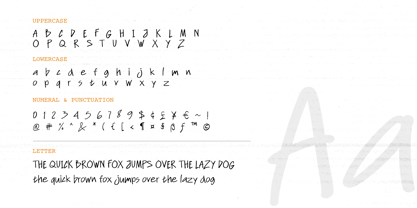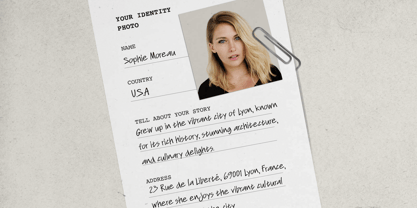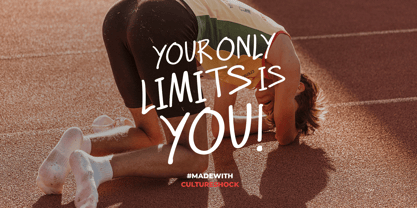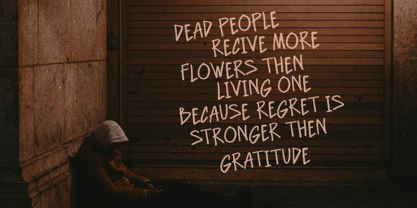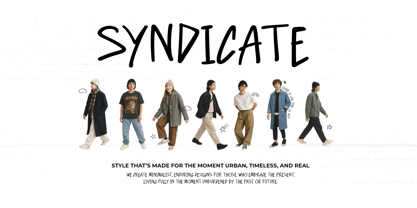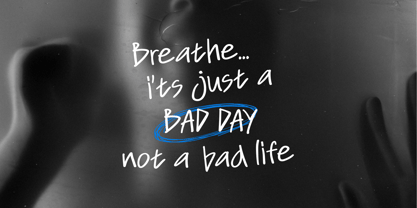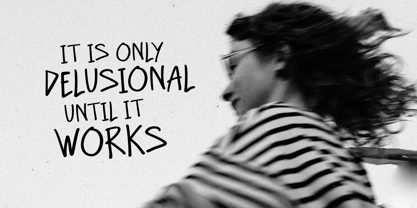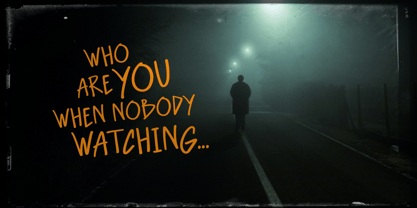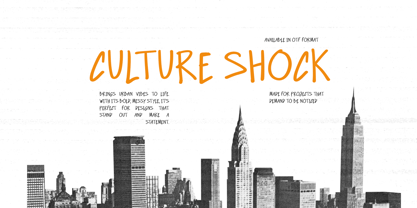
Culture Shock
by Gholib Tammami
The Culture Shock Font Family was designed by Gholib Tammami and published by Gholib Tammami. Culture Shock contains 1 styles. More about this family
Culture Shock is a distinctive handwritten font with a messy yet carefree style that embraces imperfection. Its raw, imperfect strokes bring strong character, charm, and personality to any design. Ideal for posters, bold logos, packaging, or creative branding, this font delivers an authentic, expressive, and urban vibe that highlights individuality and creativity.